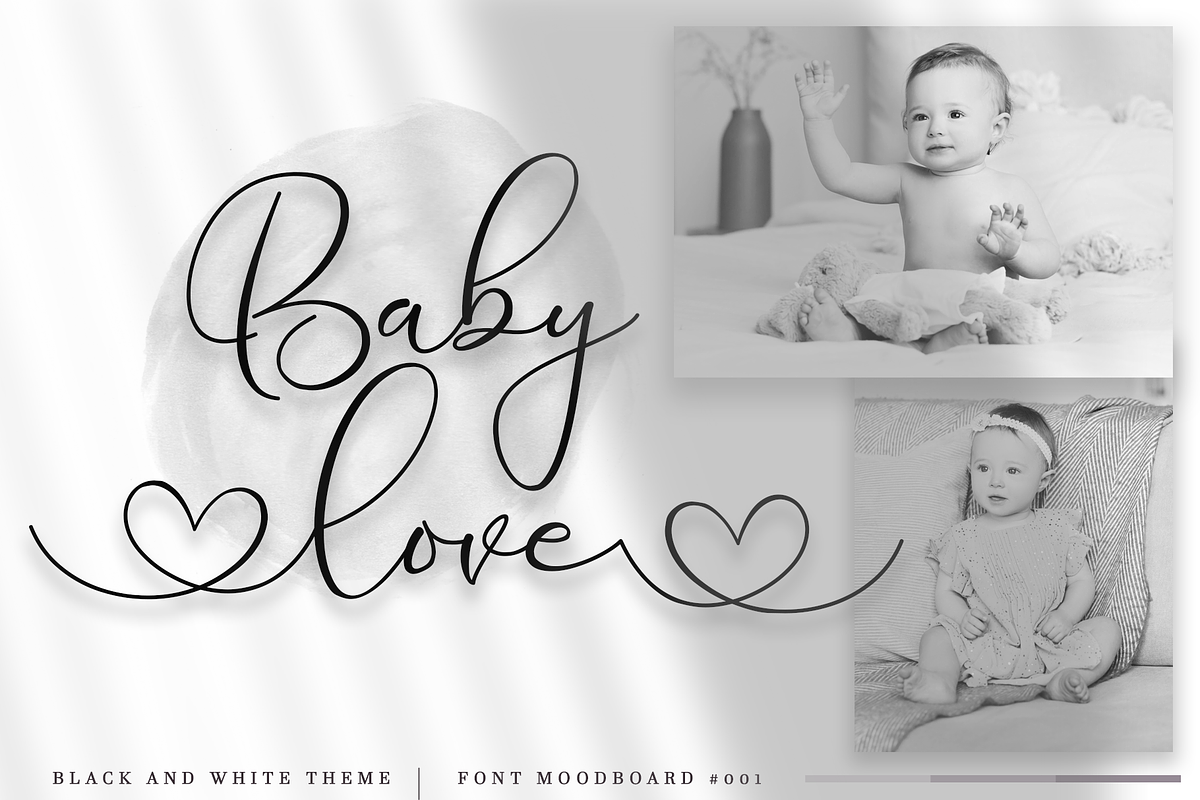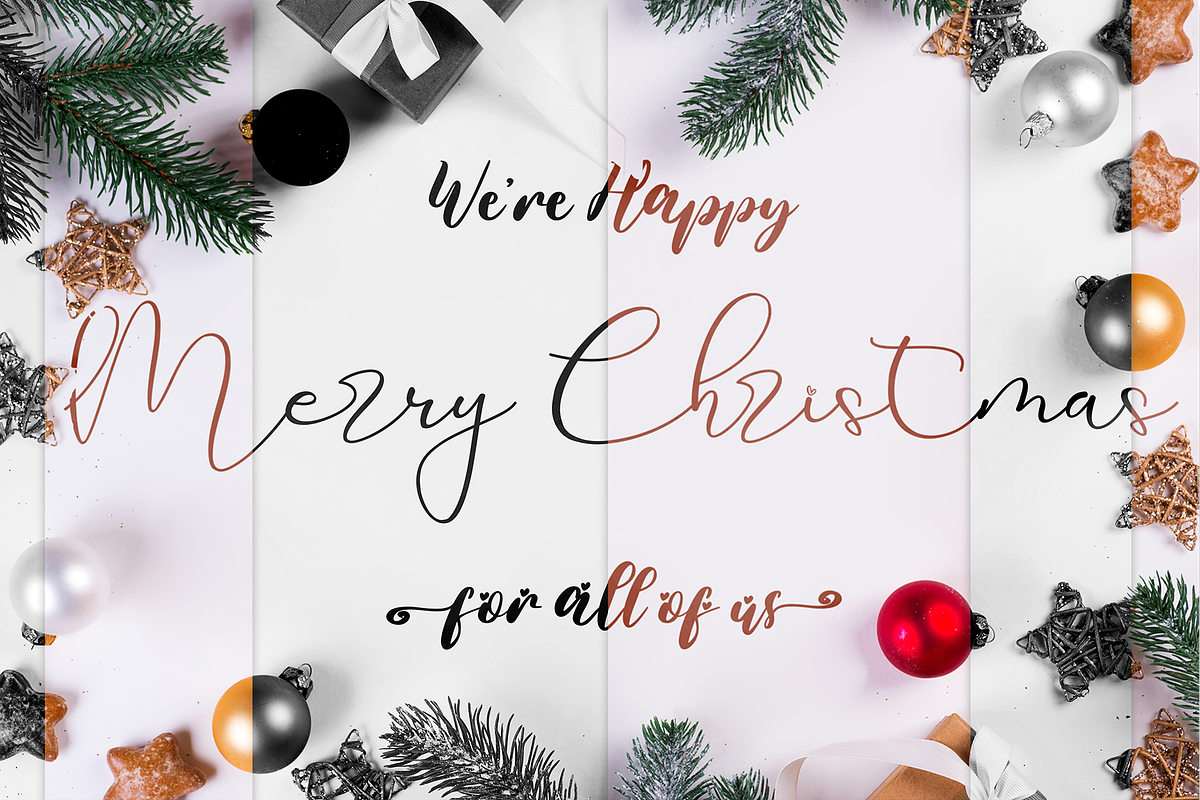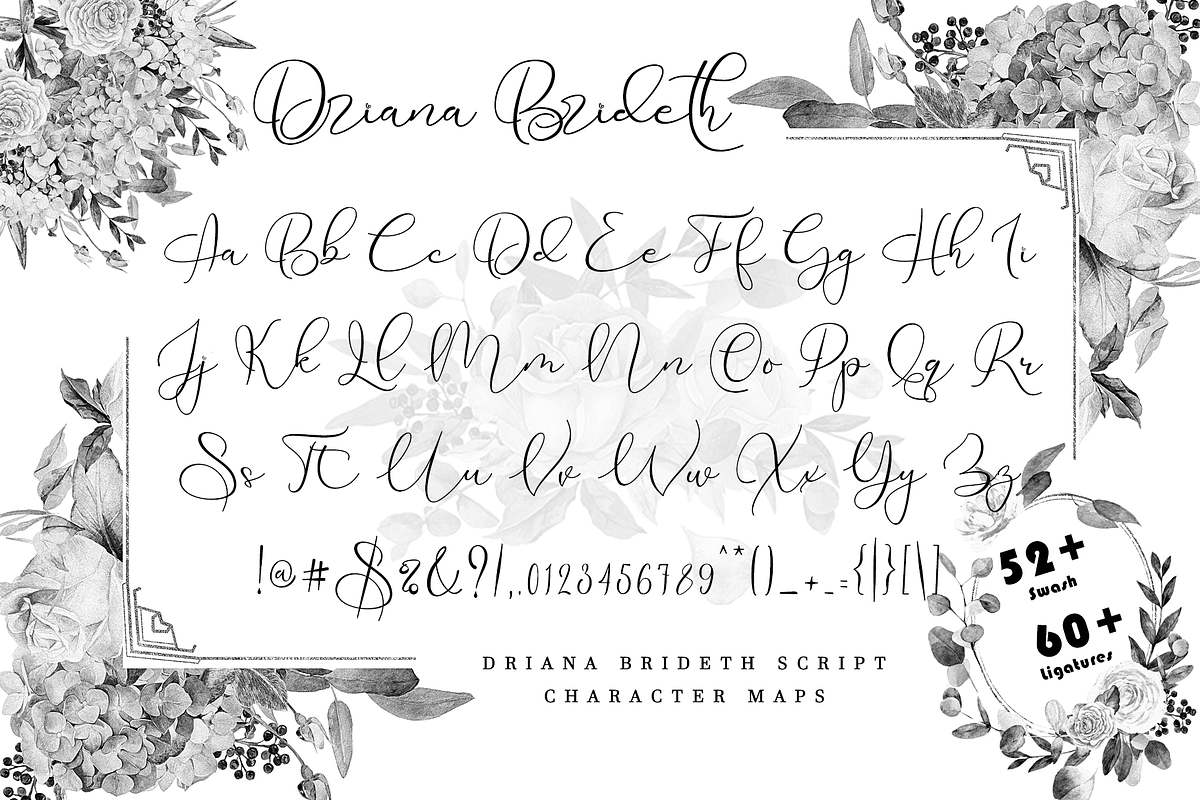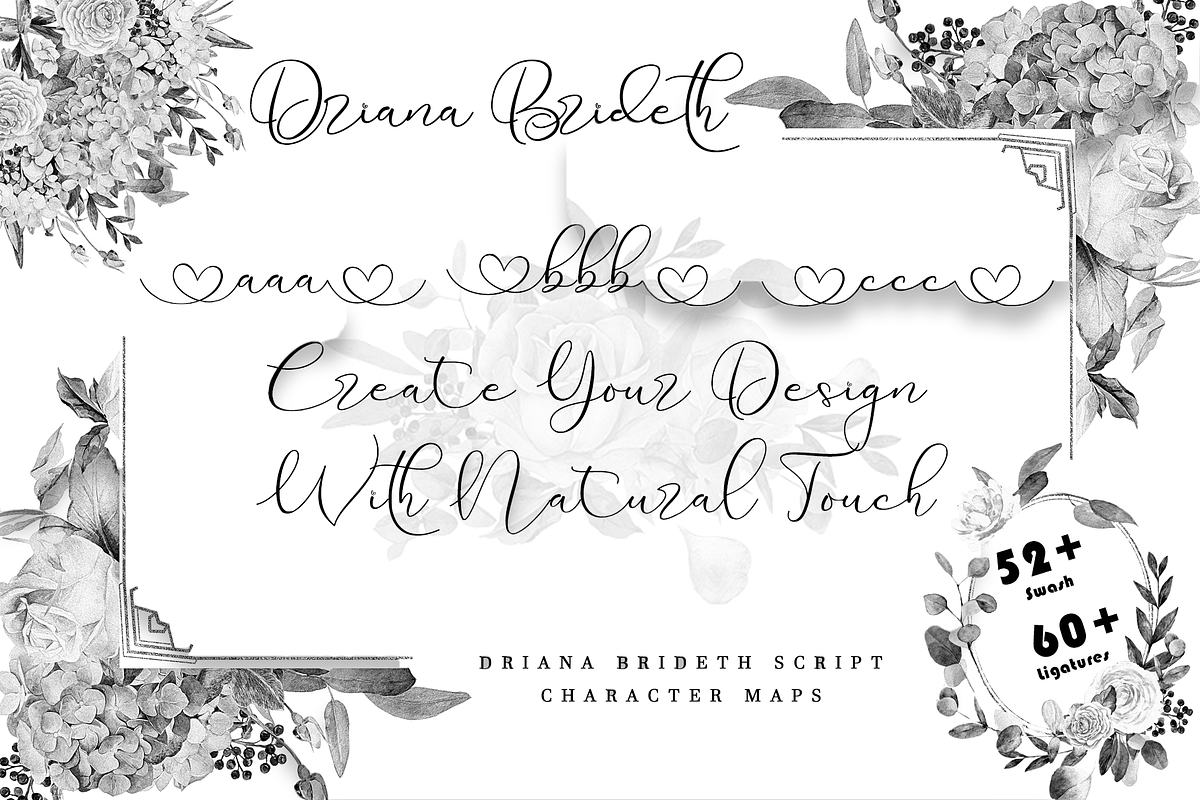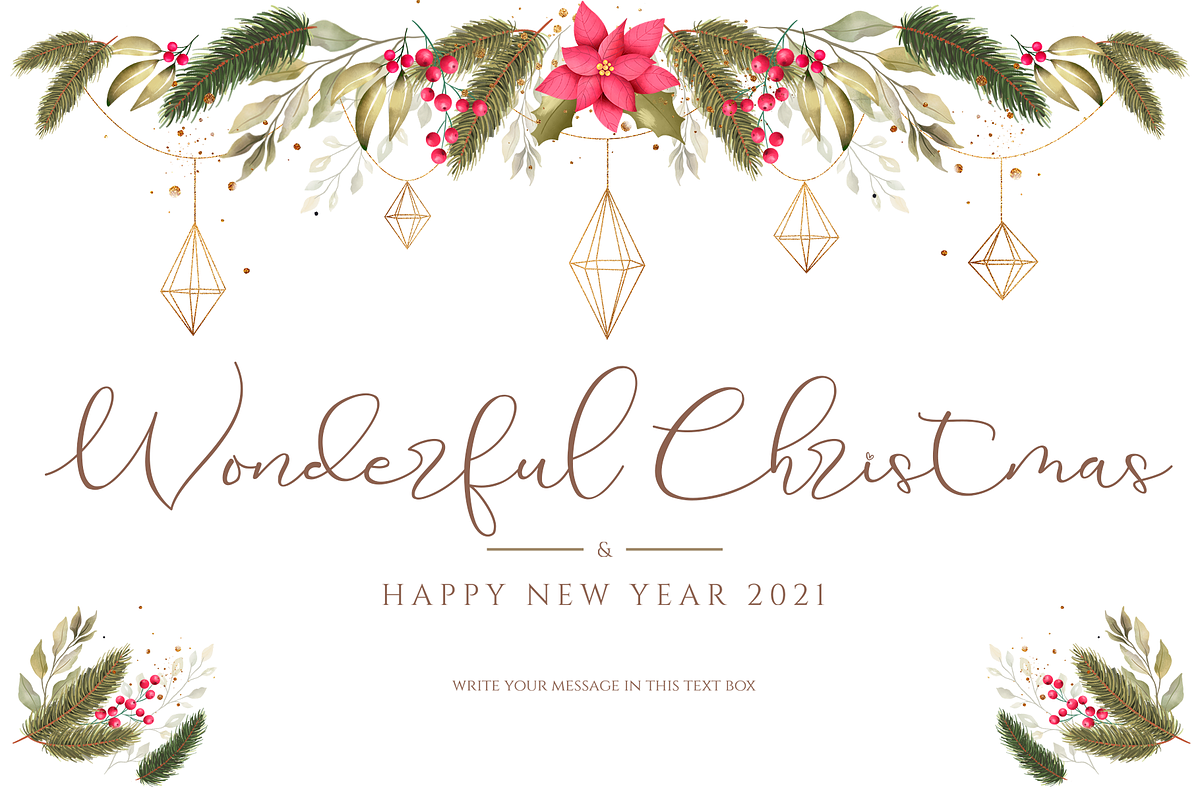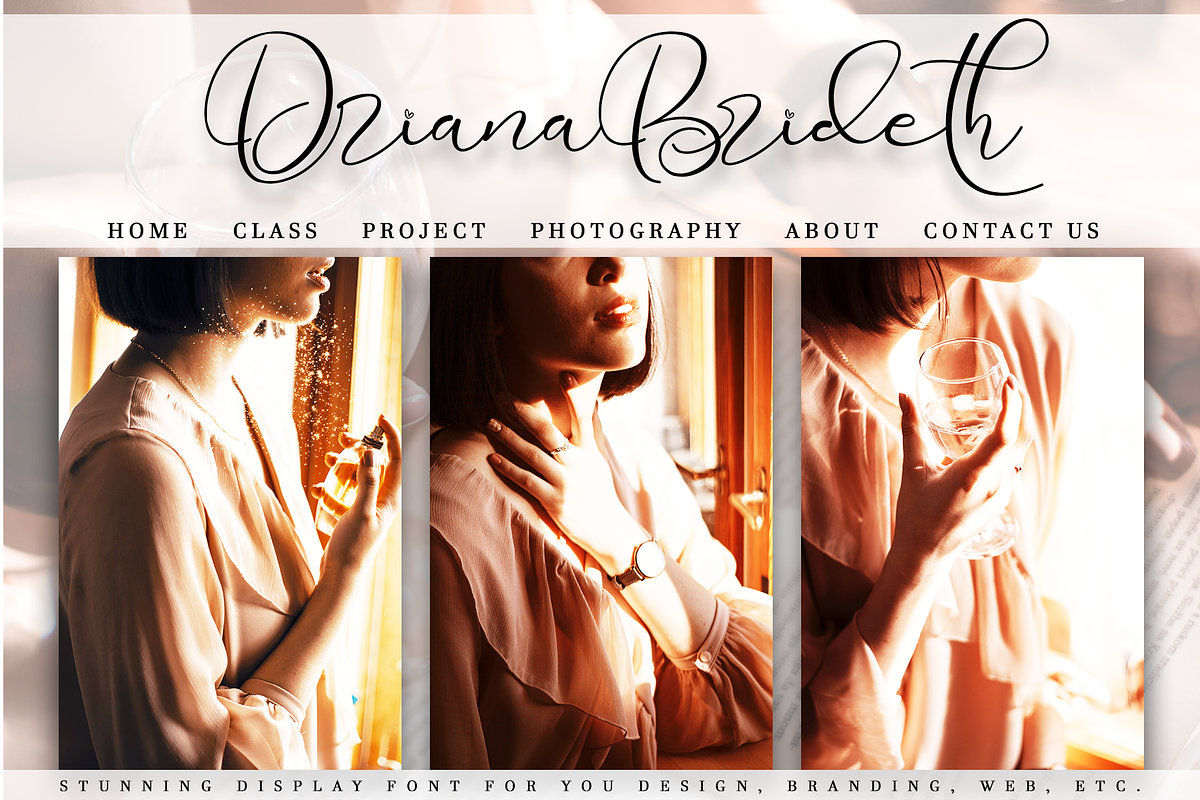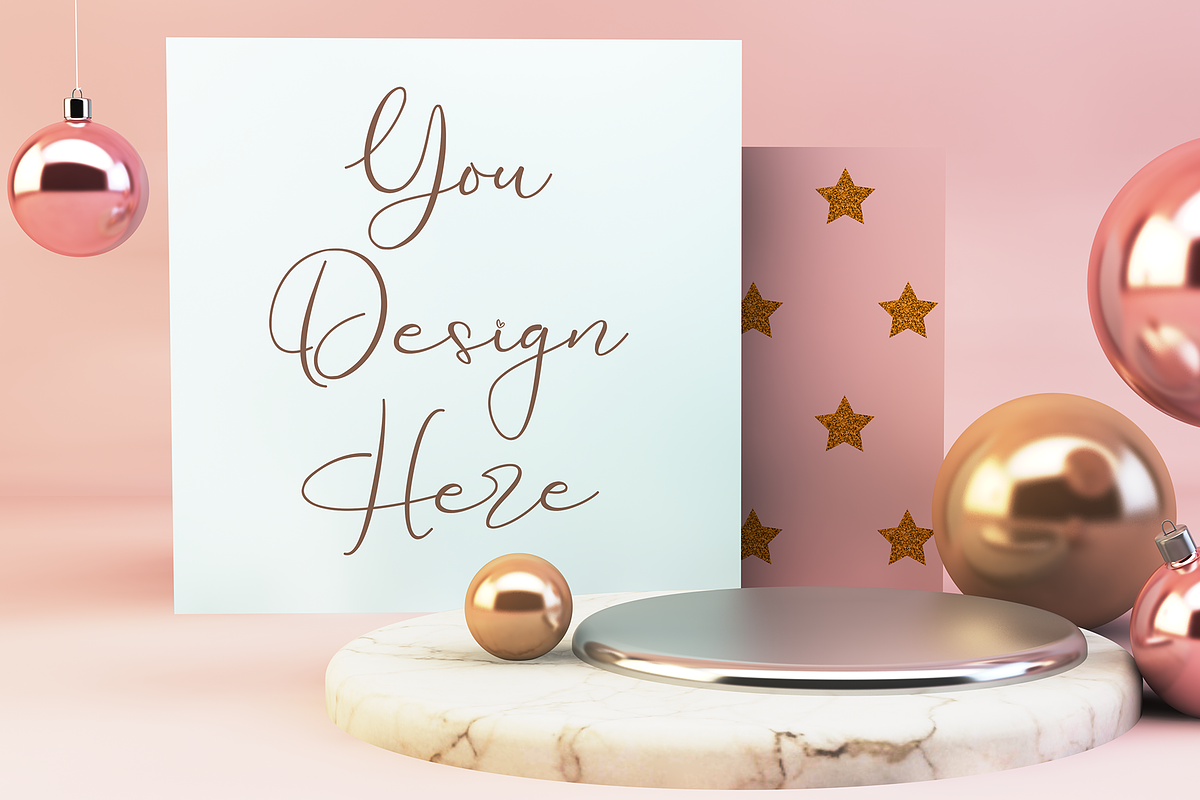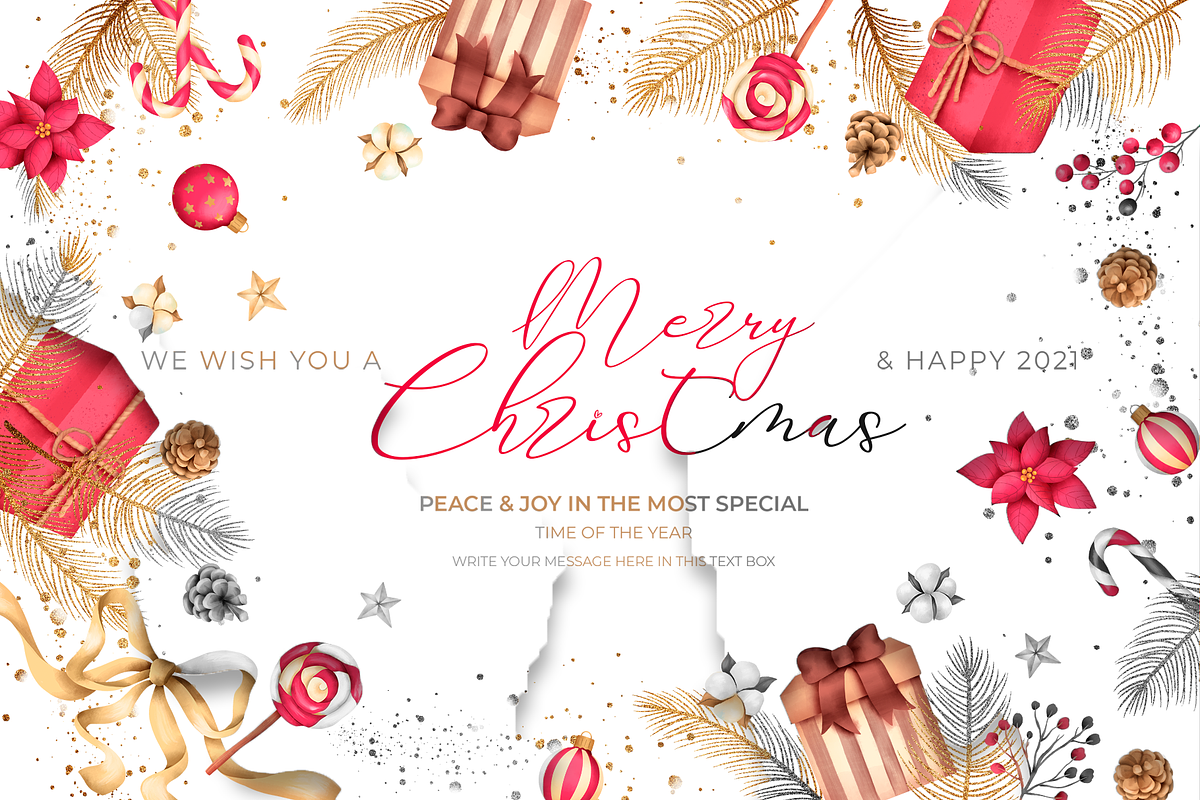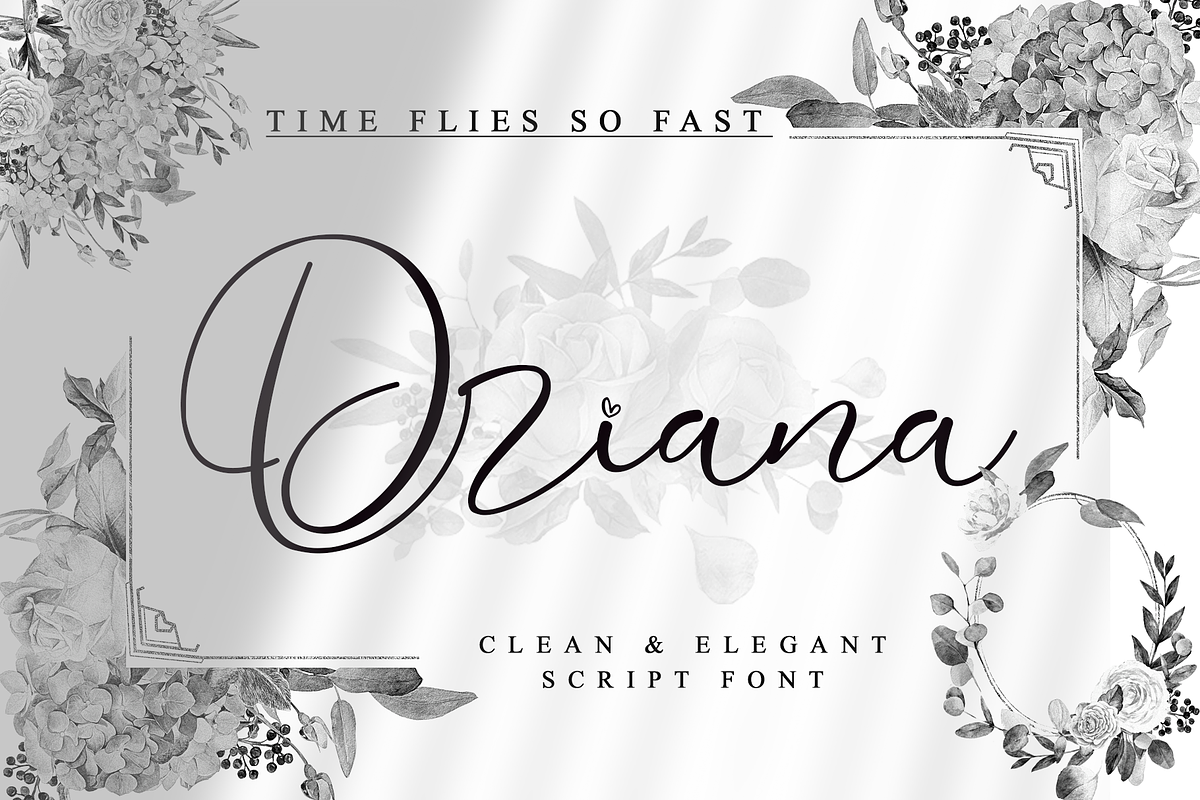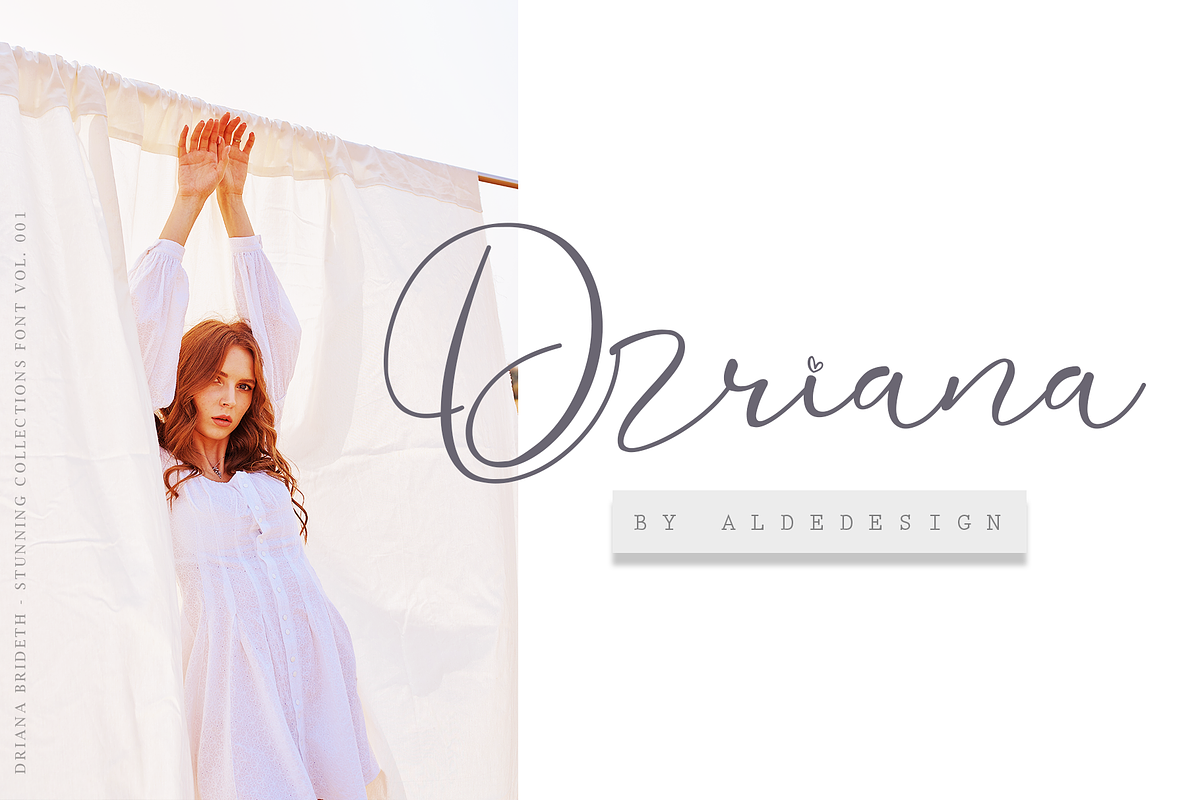
Driana Brideth
Driana Brideth // Elegant Script Font
Driana Brideth is a delicate, elegant, and flowing handwritten font. It has beautiful and well-balanced characters and as a result, it matches a wide pool of designs. Driana Brideth features a varying baseline, smooth lines, gorgeous glyphs, and stunning alternates. Add it to your most creative ideas and notice how it makes them come alive!
Each Font Has:
- Stylish modern handwritten script
- Beautiful Swash (Ending tail)
- Beautiful Titling (Beginning tail)
- Special Ligatures